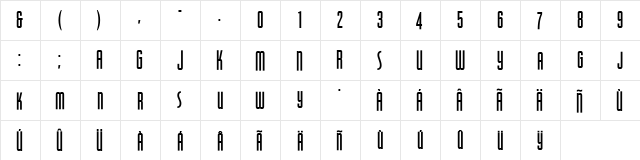
OdeonCondensedAlternate Medium Font Preview
OdeonCondensedAlternate Medium
Design Context for OdeonCondensedAlternate Typeface
OdeonCondensedAlternate takes a measured approach to typography — its balanced proportions and neutral character make it a reliable workhorse for both digital and print work. The condensed width makes it efficient for tight spaces without sacrificing legibility.